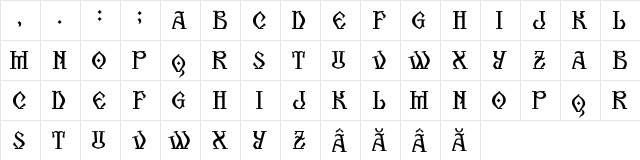
KogaionESS Regular Font Preview
KogaionESS Regular
KogaionESS Regular Font Details
Design Context for KogaionESS Typeface
KogaionESS is a composed and adaptable typeface that performs quietly and consistently across a wide range of design contexts.